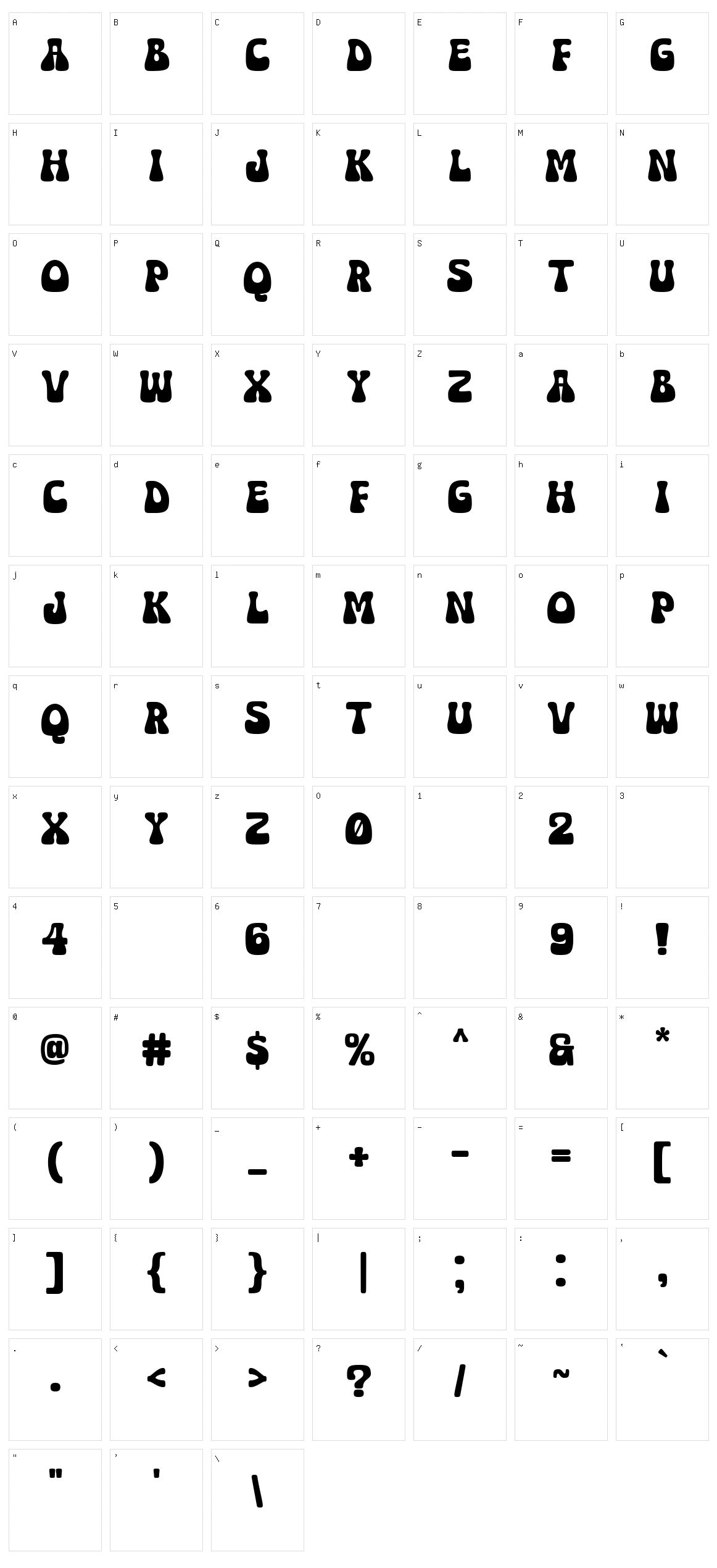
Introducing Super Festival: A Groovy Blast from the Past
Super Festival is a font that captures the vibrant energy and nostalgia of the retro era. It blends the coolness of groovy fonts with the boldness of boxy typography, creating a unique look thatâs perfect for eye-catching designs.